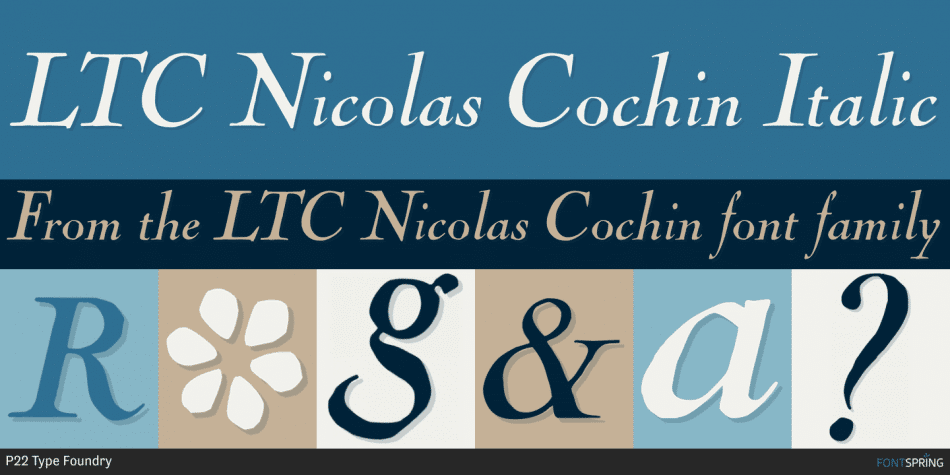
Nicolas Cochin (not to be confused with another font named simply “Cochin”) was originally designed by Georges Peignot in the early 20th Century and was based on engraved letters of the 17th Century artist Charles Nicholas Cochin.
Many foundries including Lanston released versions in the 1920s. Several digital versions can now be found, but none have kept the irregular details of the metal type which include strokes that cross over each other as if hand drawn (see letters K & y).
The new Lanston digitization is the only digital version to retain the idiosyncratic treatment which makes the metal type so alluring.
The Opentype version included an expanded Central European character set as well as ligatures, alternates, fractions, superior/inferior numerals (the Italic also has swash characters).